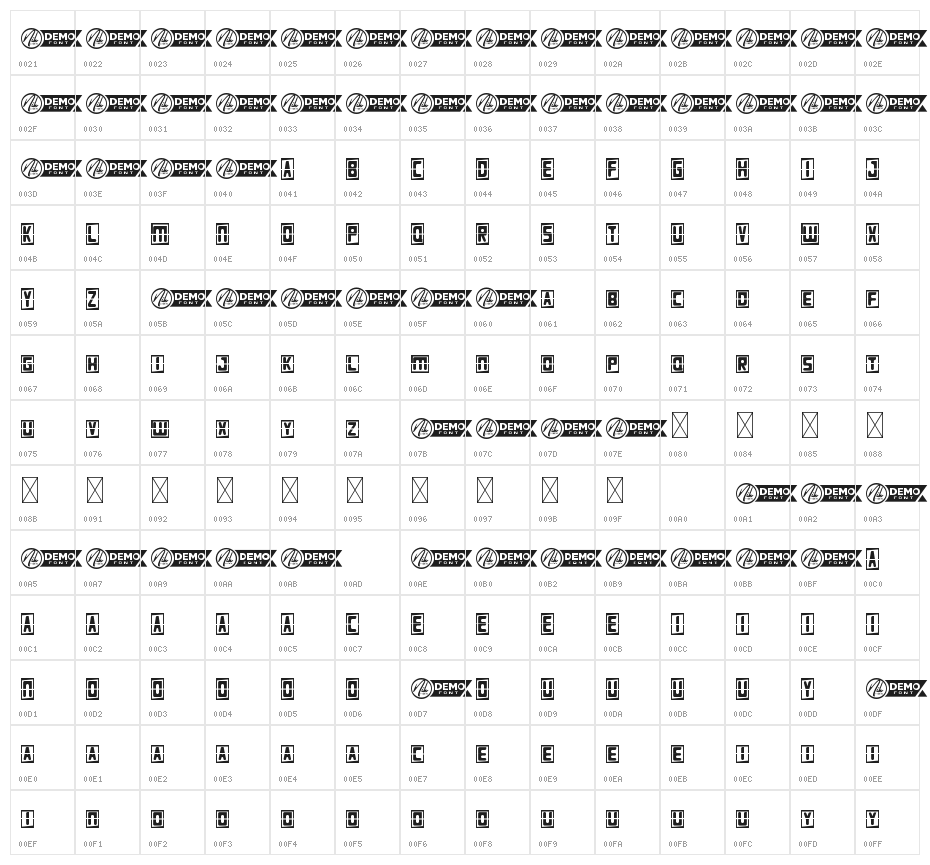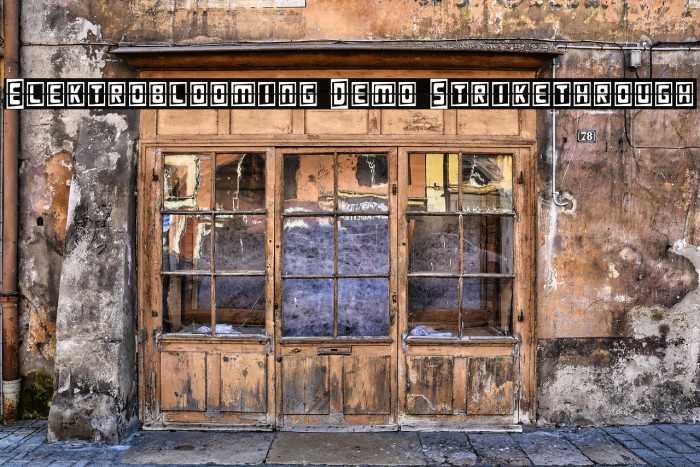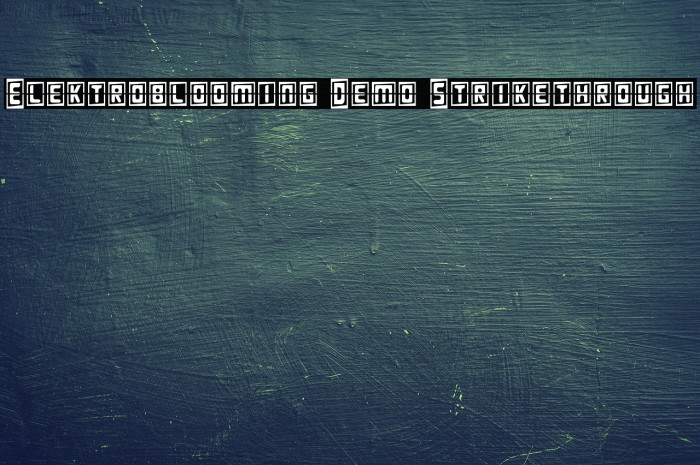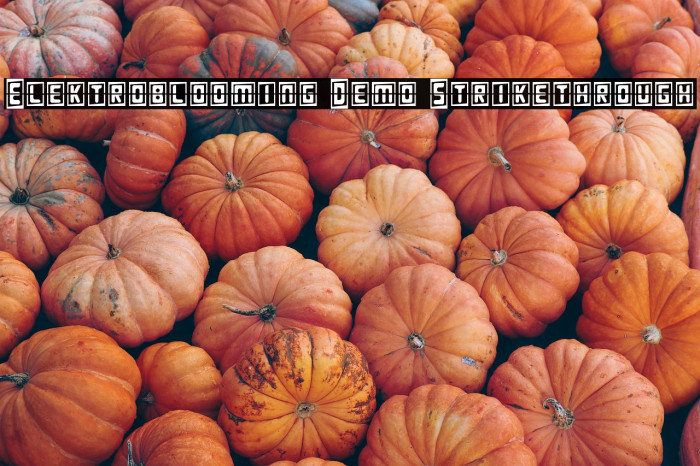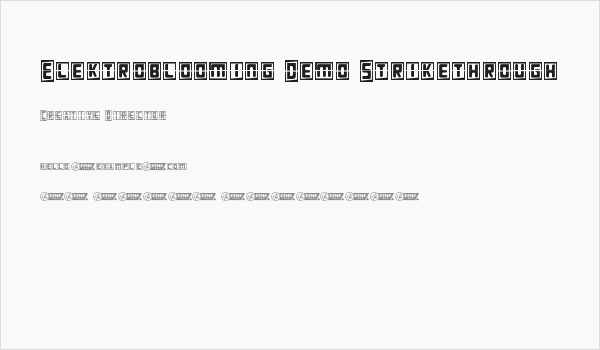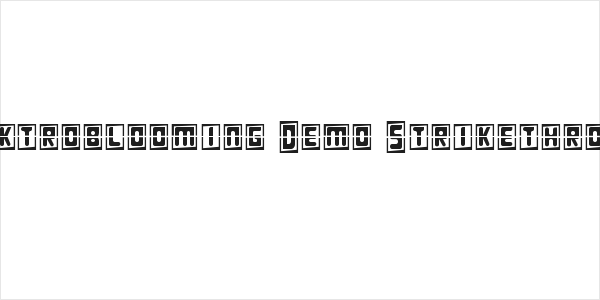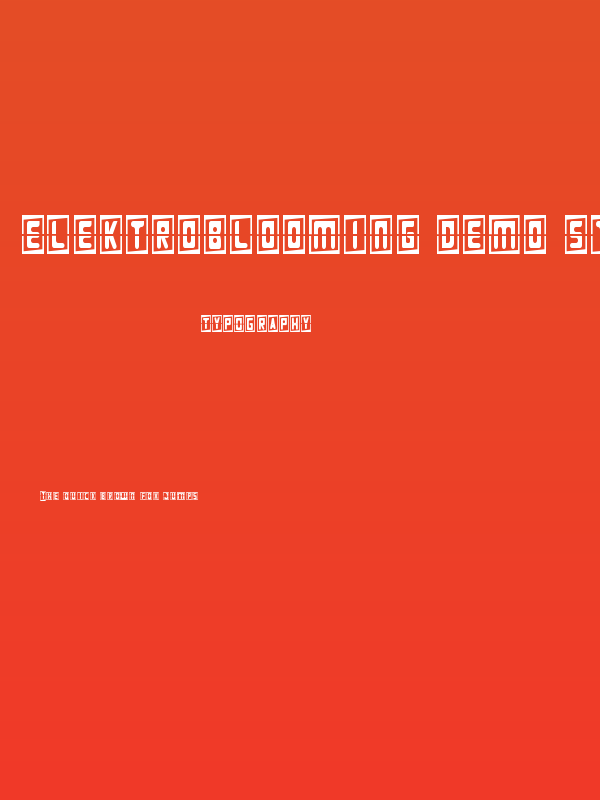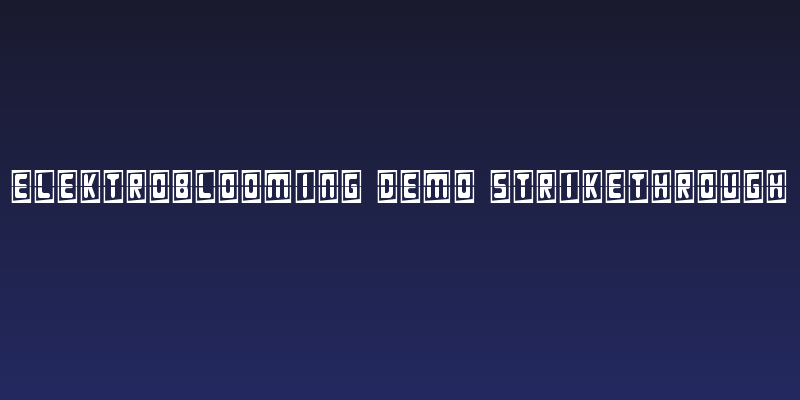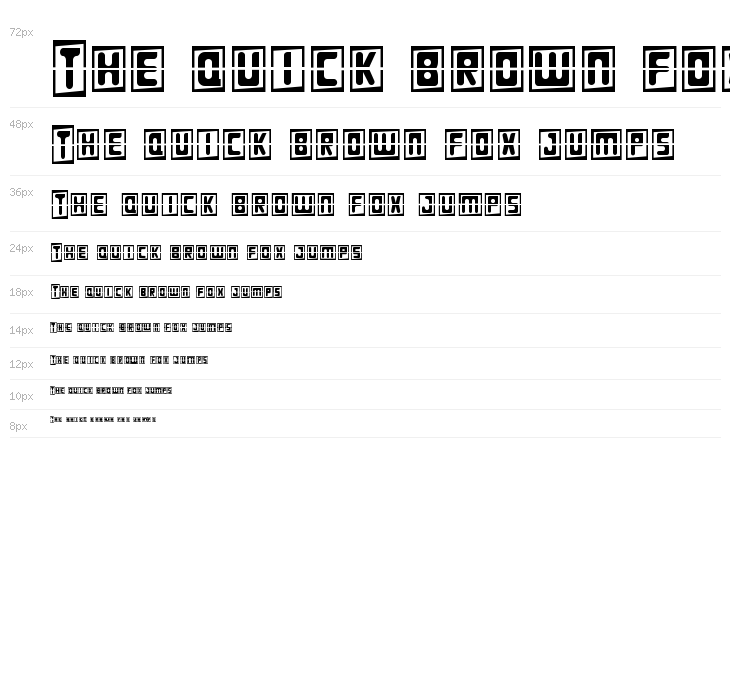
Elektroblooming Demo Strikethrough Font
Elektroblooming Demo Strikethrough Description
This font features a bold, geometric design with each character enclosed in a square frame. The letters are uppercase and have a striking, modern appearance with a unique strikethrough effect running horizontally through the middle of each character. The style is reminiscent of digital or electronic displays, making it ideal for futuristic or tech-themed projects. The boldness of the characters ensures high visibility and impact, while the consistent framing provides a structured and cohesive look.
| Proposed Projects | Ideal for tech-themed designs, digital displays, futuristic branding, and eye-catching headlines. |